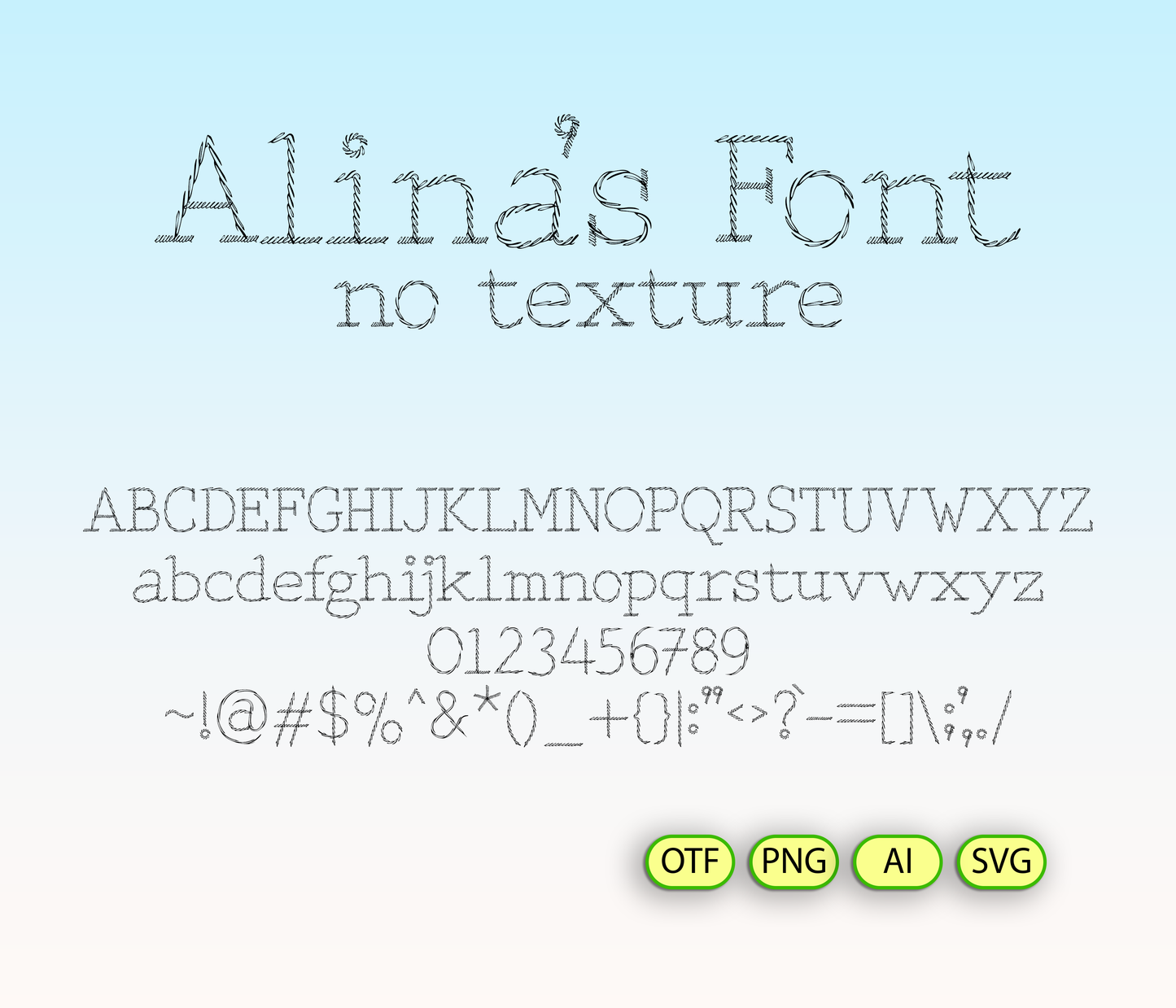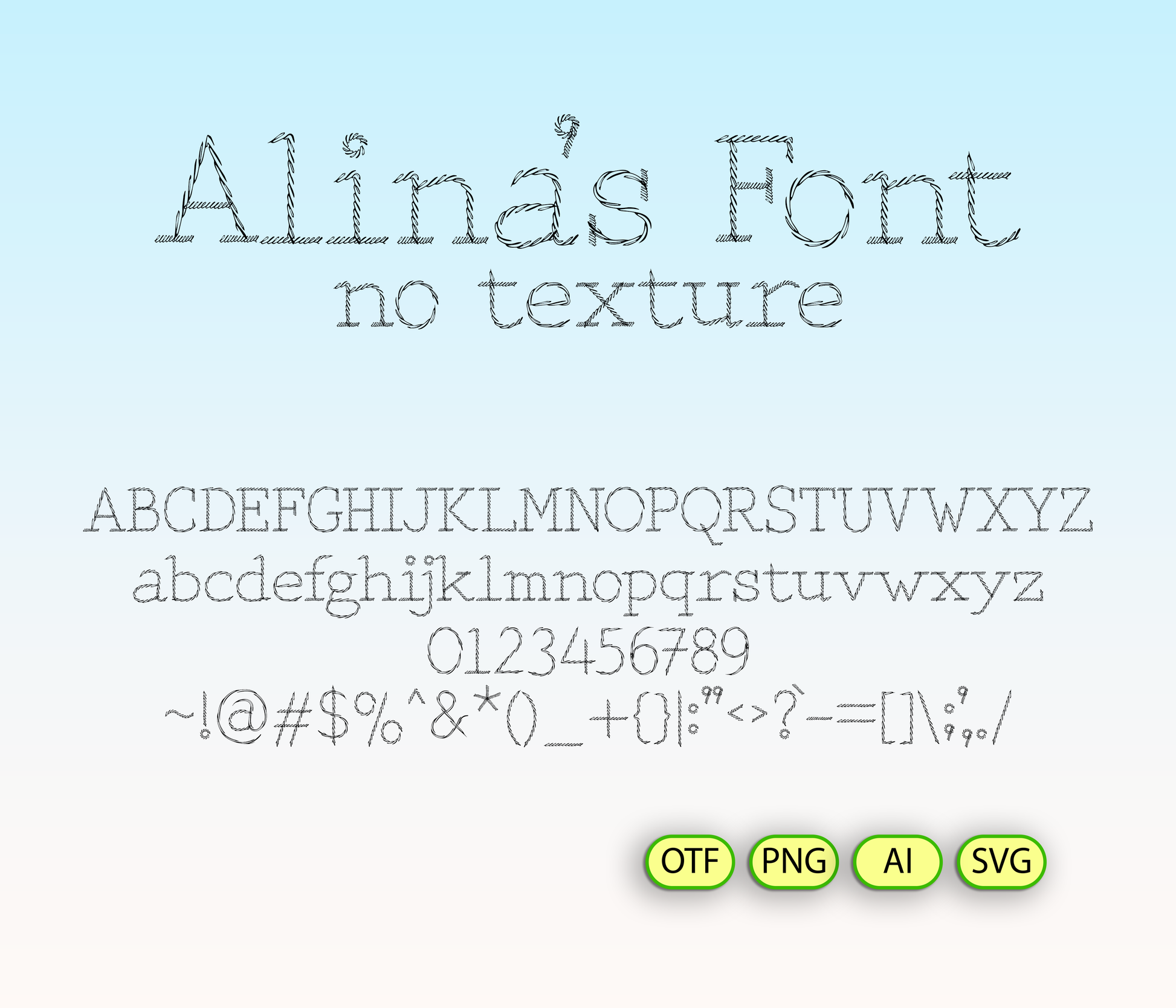
Structured Typewriter - Old School Letterpress Font
Experience the methodical precision of organized documentation with our Structured Typewriter font, capturing the essence of systematic correspondence and formal typing protocols. Designed for professional document creators, institutional brand developers, administrative content specialists, and formal communication experts, this font delivers the orderly, dependable character of structured typing systems to your design projects. Create authoritative business materials, official merchandise, or professional digital content with the disciplined, methodical spirit of formal typewriter operations.
Our Structured Typewriter font showcases organized, consistent letterforms and systematic alignment that mirrors the reliable yet authoritative aesthetic of institutional typing equipment and formal documentation standards. Perfect for:
• Corporate Events: Design professional conference materials, business seminar signage, and executive meeting announcements with established institutional credibility
• Official Design: Excellent for government agency branding, legal document templates, and formal certificate layouts that honor traditional administrative protocols
• Digital Media: Enhance corporate websites, professional blogs, and business social media with headers that express systematic reliability and formal authority
• Educational Content: Add authentic character to academic publications, institutional materials, and promotional content for formal educational events
• Professional Projects: Bring systematic elegance to official correspondence, formal presentations, and artistic endeavors inspired by the aesthetics of structured communication